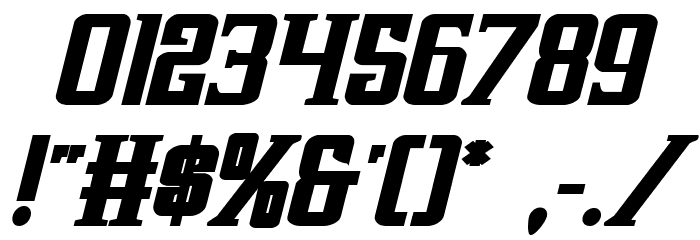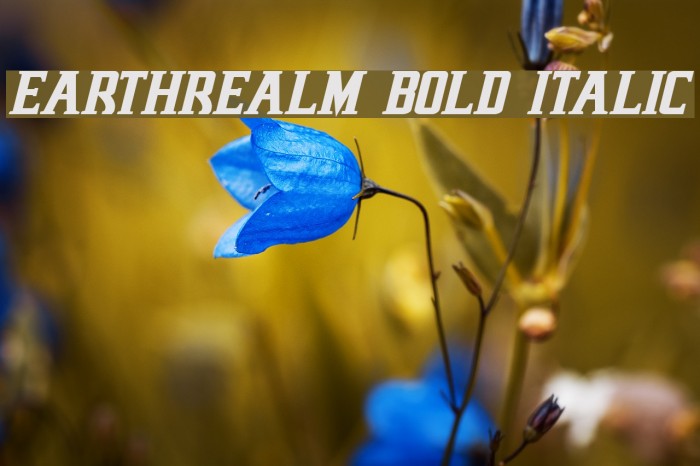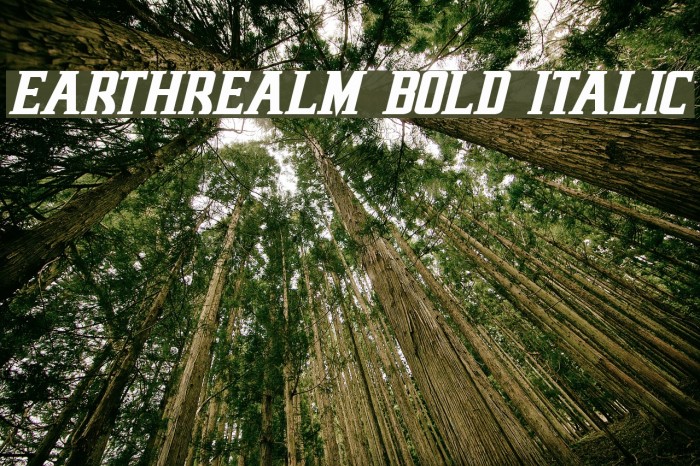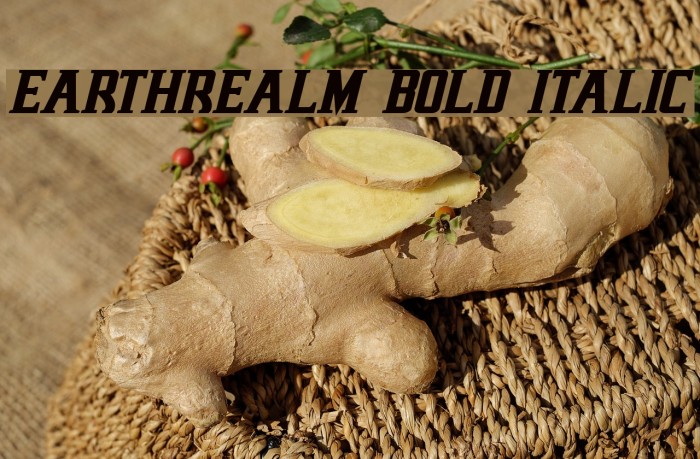
Earthrealm Bold Italic Font
This font features a bold and italicized style with a strong, dynamic presence. The characters are sharply angled, giving a sense of motion and energy. The uppercase letters are tall and commanding, while the lowercase letters maintain a consistent style with slightly less height. The numerals are robust and clear, matching the overall boldness of the font. Special characters are designed with the same attention to detail, ensuring they stand out effectively. The font's design is suitable for making a strong visual impact, with its bold strokes and italic slant creating a sense of urgency and importance.
A bold, italicized font with sharp angles and a dynamic presence.
- Proposed Projects: Ideal for sports branding, action movie posters, video game titles, and dynamic advertising campaigns.